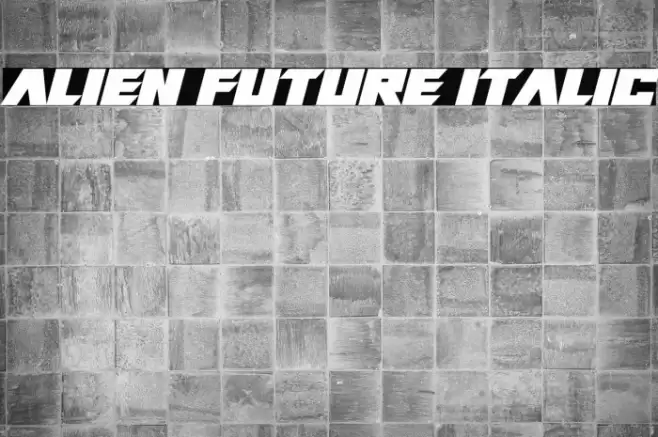
Alien Future Italic Font
Alien Future Italic Description
This font features a futuristic and angular design, characterized by sharp edges and a bold presence. The letters are slanted, giving an italicized appearance that enhances its dynamic and forward-moving aesthetic. The uppercase and lowercase letters maintain a consistent style, with each character exhibiting a unique geometric form that contributes to the overall modern and sleek look. The numbers and special characters are designed to match the bold and angular theme, ensuring uniformity across all elements. This font is ideal for projects that require a strong, impactful visual statement.
A bold, angular, and futuristic italic font with a dynamic and modern style from Uncategorized fonts.
- Proposed Projects: Ideal for sci-fi themed designs, video game titles, futuristic branding, and technology-related projects.
- Overall Style: Futuristic, Modern